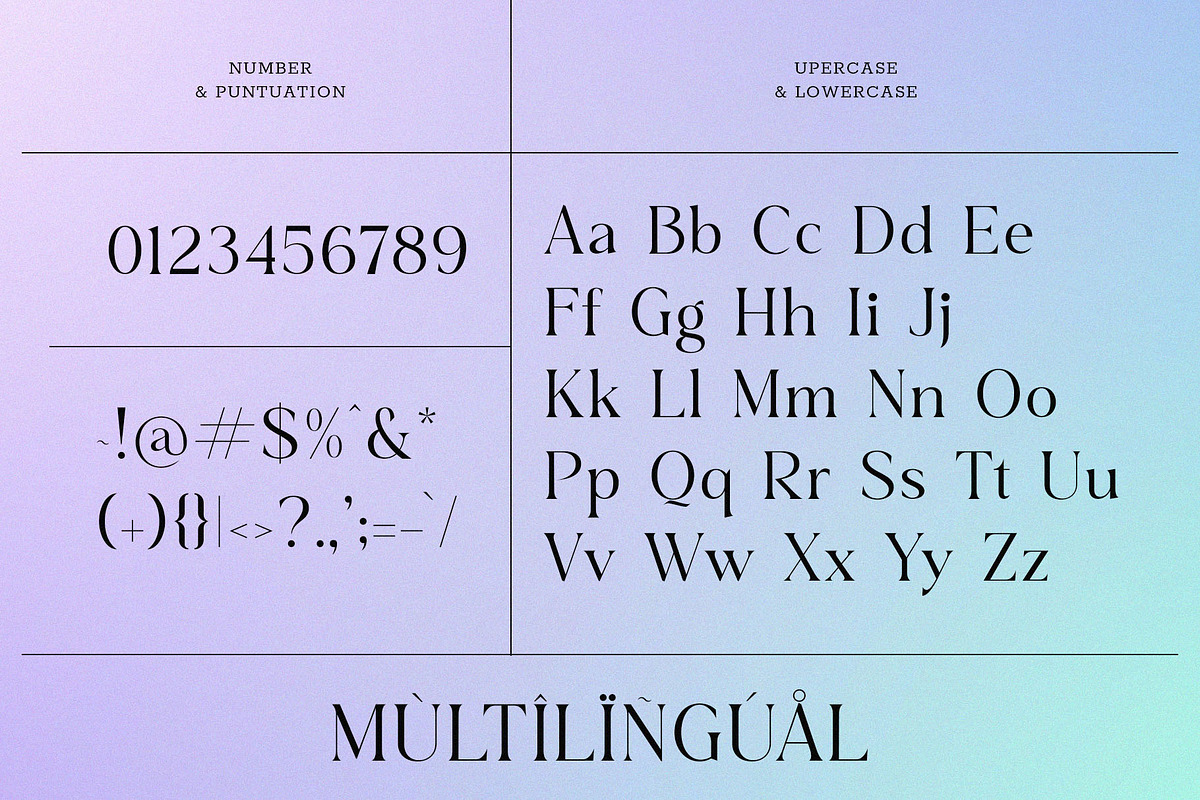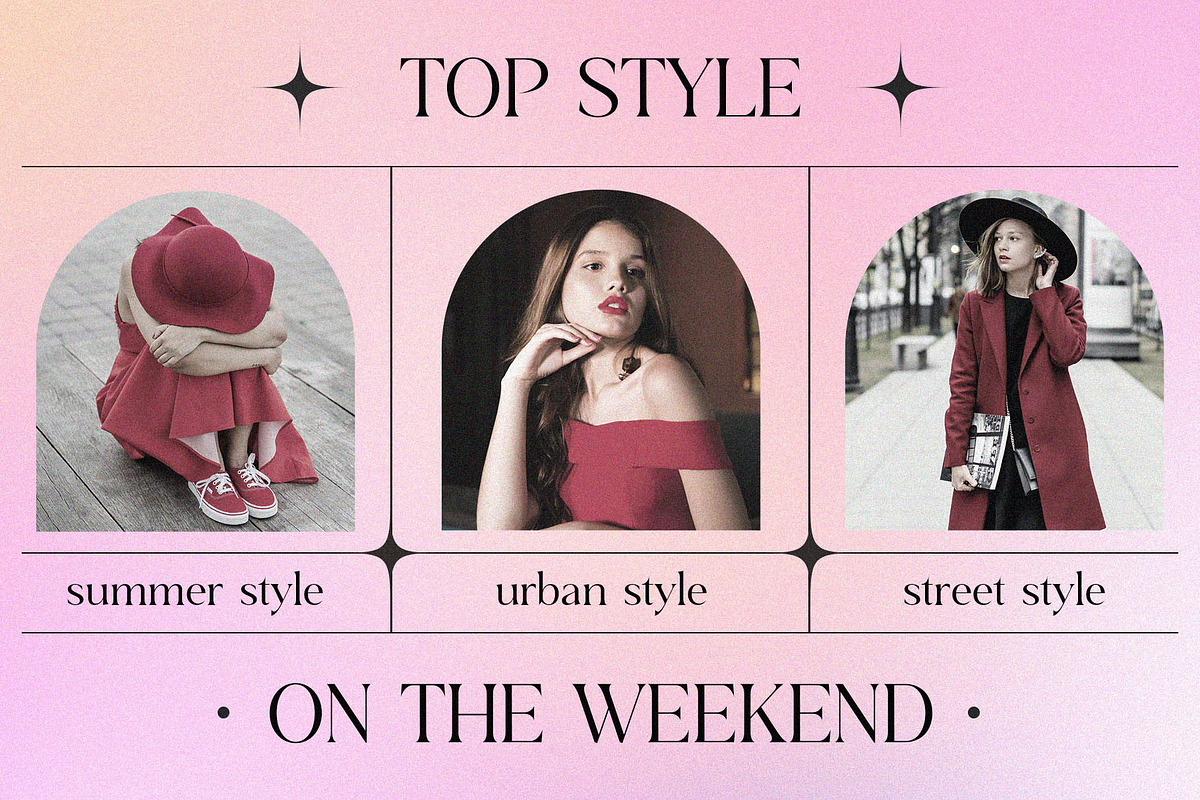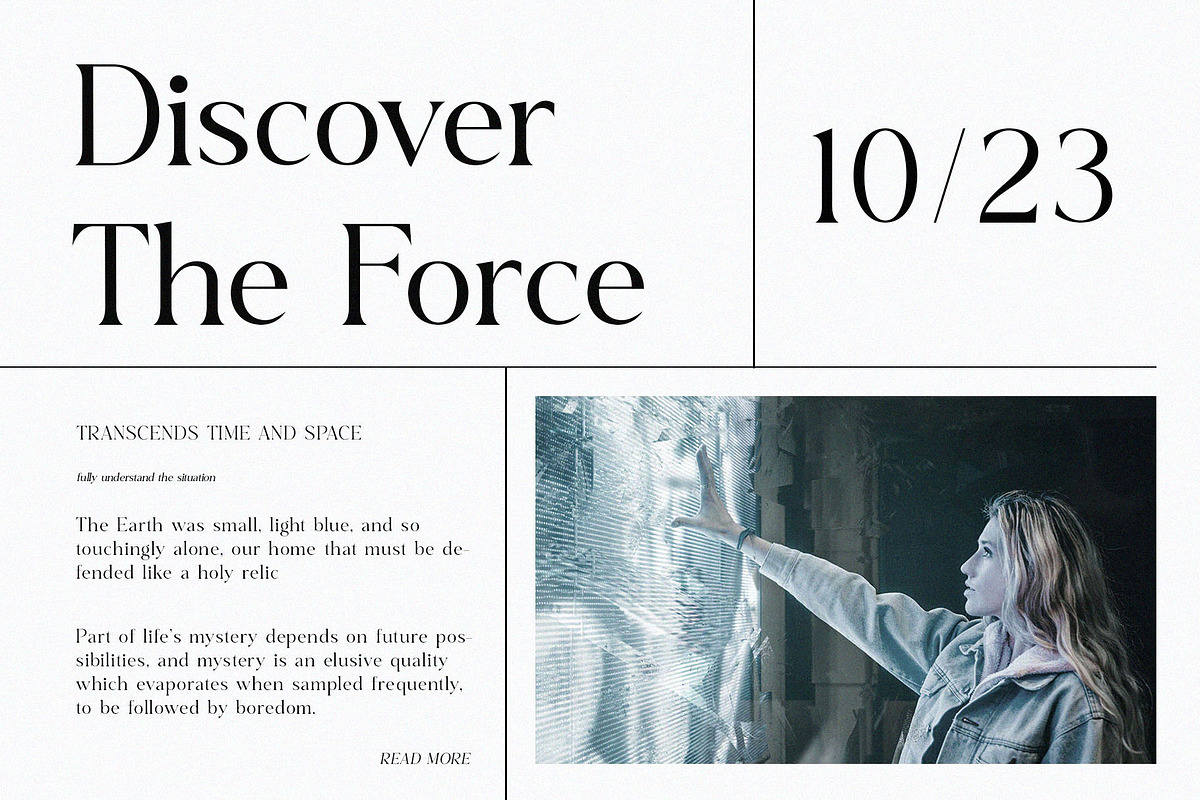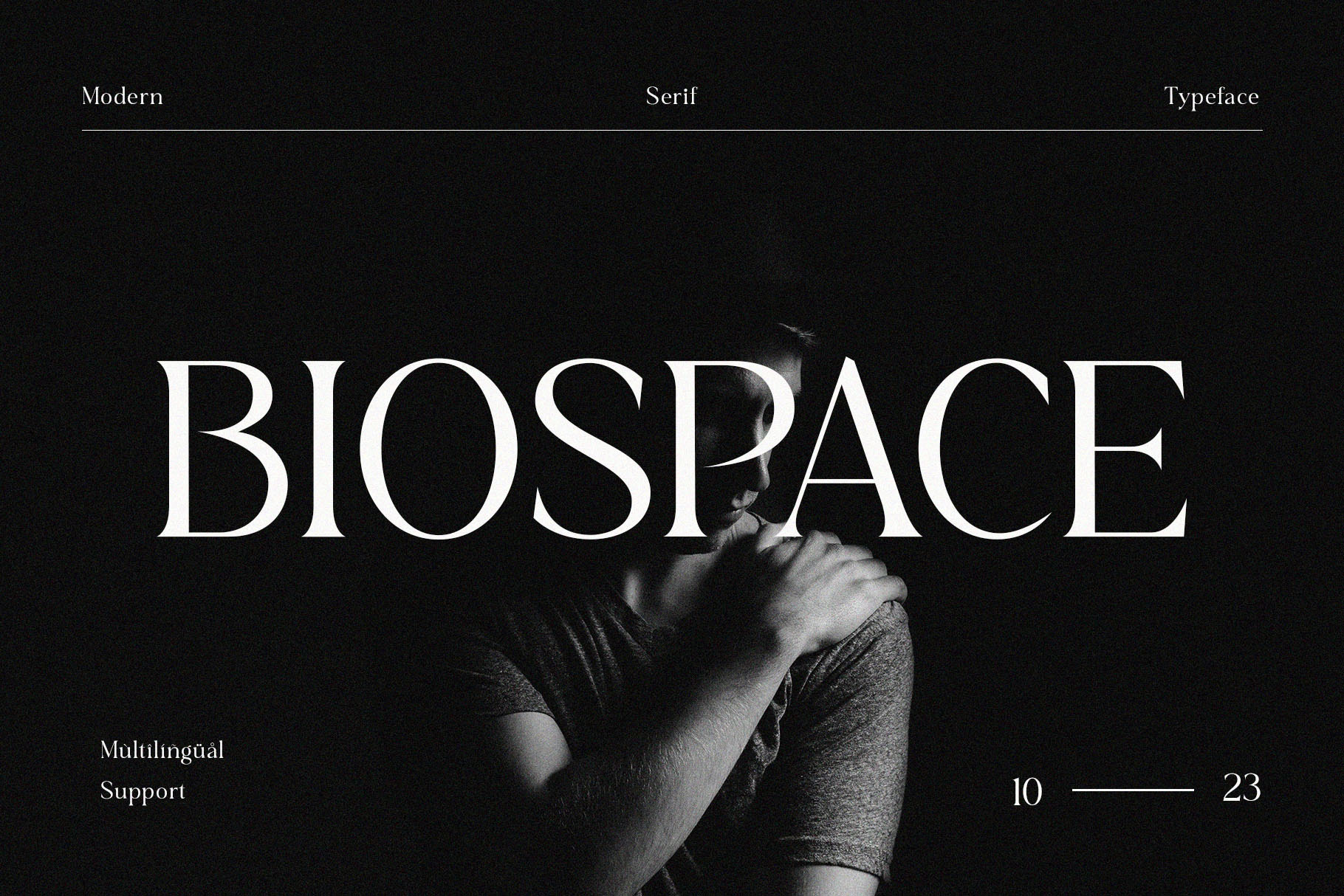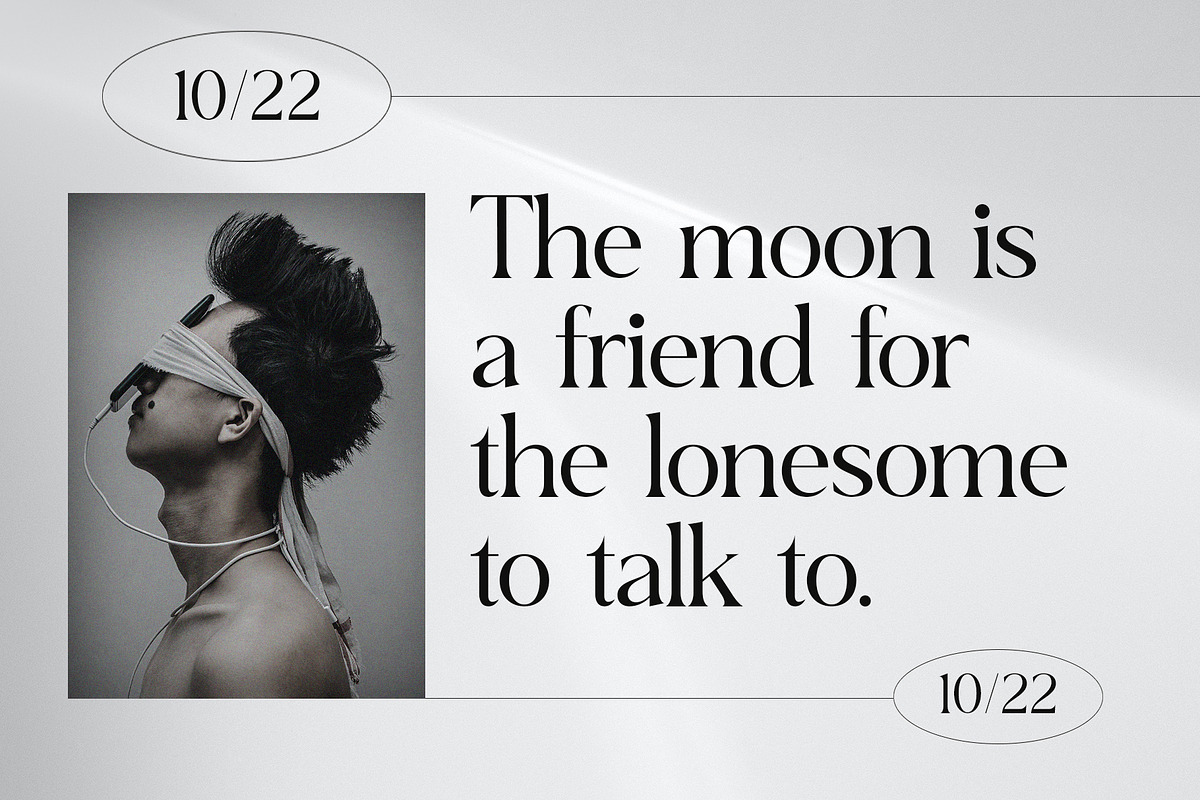
Bioscape - Modern Serif Typeface
Introducing 'Biospace' Font:
Introducing Biospace, a classy and sleek serif font. With its modern and stylish appearance, Biospace is the ideal choice for creating unique, elegant, and chic designs. Elevate your projects with the sophisticated and contemporary flair of Biospace.
Ideal for:
- Classy Designs
- Beauty and Fashion
- Elegant Creations
- Versatile Applications
- Social Media Designs
- Magazines
- Ready for Creative Expression
- Immaculately Crafted Letters